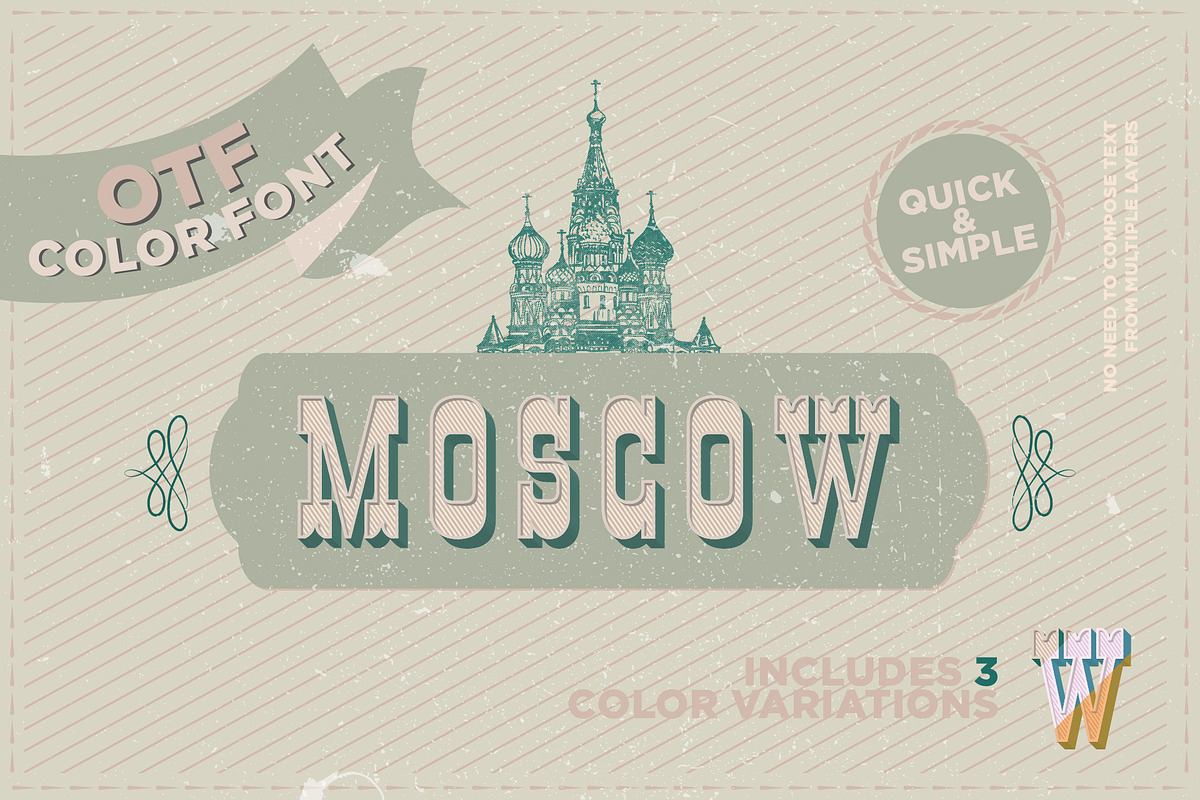
Moscow – OTF Color Font Free Download is a bold and artistic color typeface that brings instant vibrance and personality to your designs. With multi-color layers and stylish detailing built into each character, Moscow is perfect for posters, packaging, social media graphics, branding, and creative headlines that need to pop.
This OpenType-SVG font gives you a ready-made color palette within each letter—no extra effects or edits required. Whether you're aiming for a modern retro look or eye-catching street-style design, Moscow delivers creativity with ease.